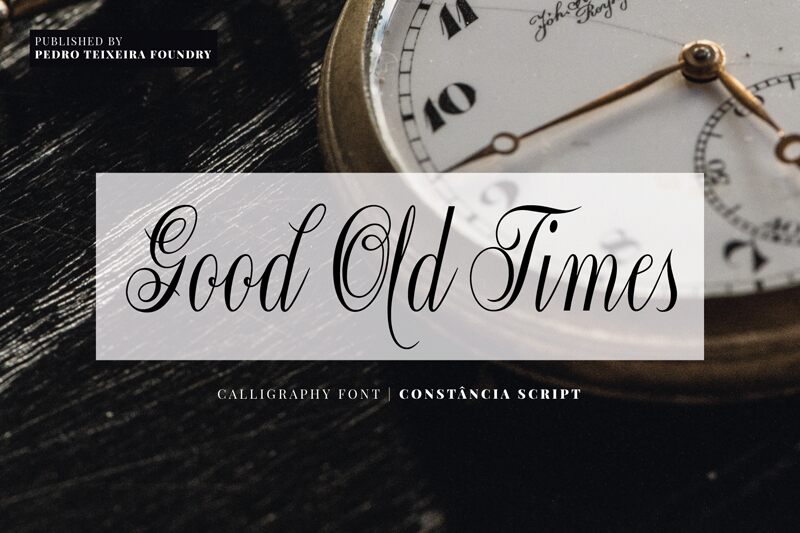
Constancia Script Bold
Constncia Script, classic and elegant calligraphy. This unique, stylish and legible script is handy for logo, poster, headlines, invitations, cards and all display needs.
Upper and lowercase characters of basic latin/English, West European diacritics, central Europe, Baltic, Turkish, Romanian, Vietnamese, numerals, punctuation and OpenType features like alternates.